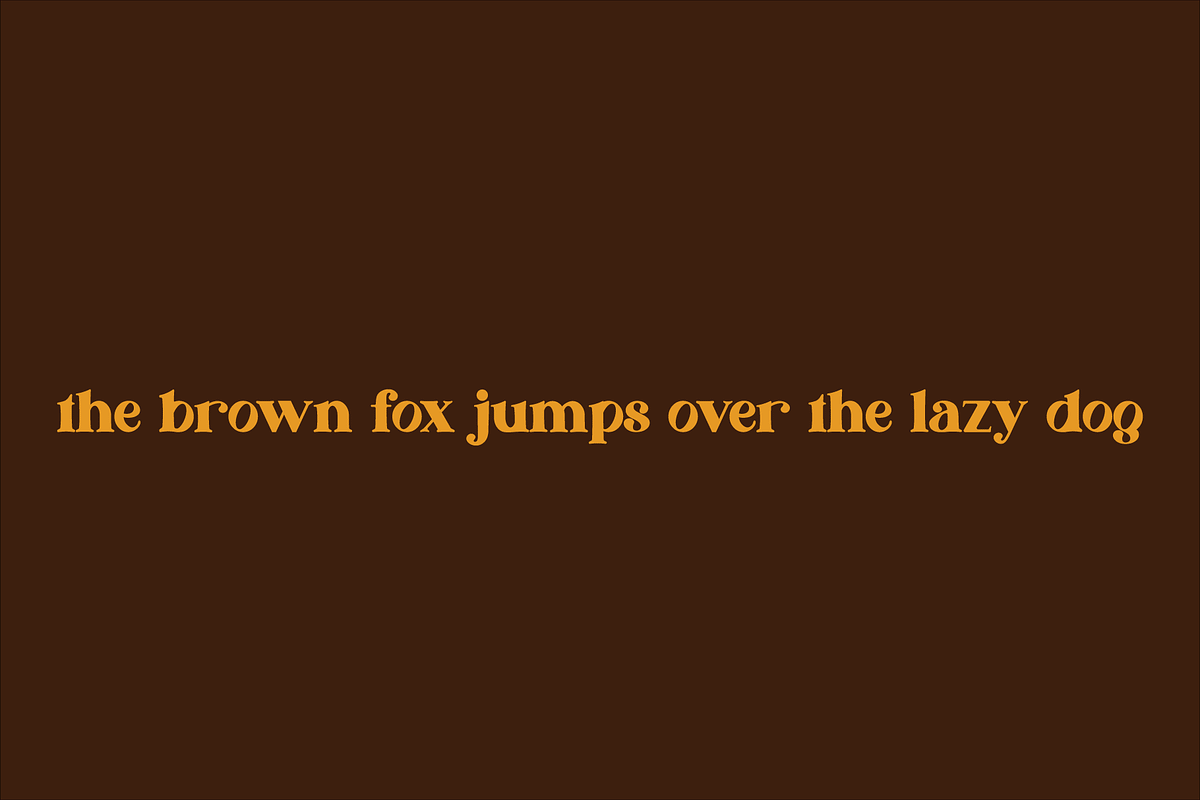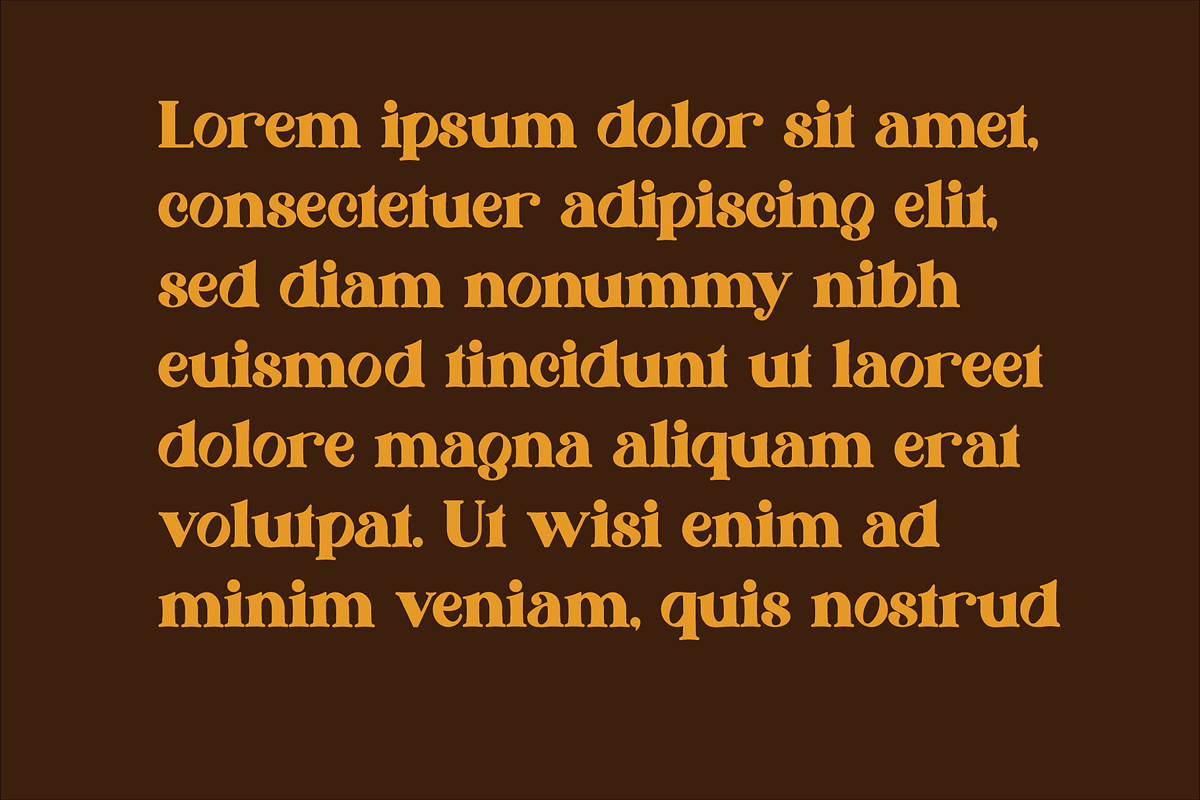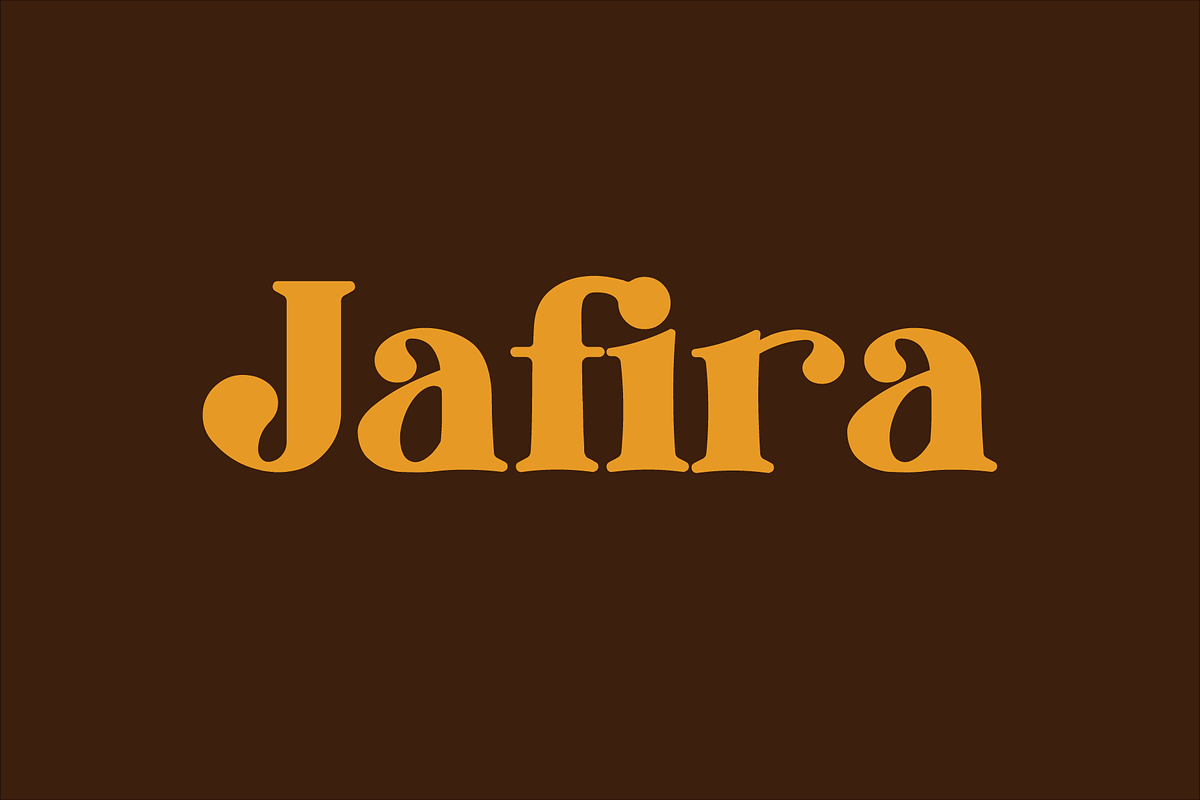
Jafira
Introducing our new product the name is Jafira. Classic Modern Serif Fonts. This font is perfectly suited for a wide variety of projects, such as signature, stationery, logo, wedding, typography quotes, magazine or book cover, website header, clothing, branding, packaging design, and more. Also, fashion-related branding or editorial design displays both masculine and feminine qualities.